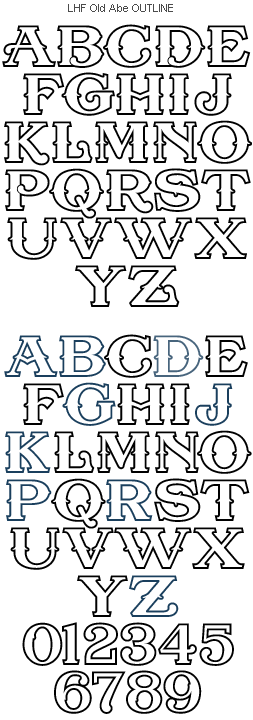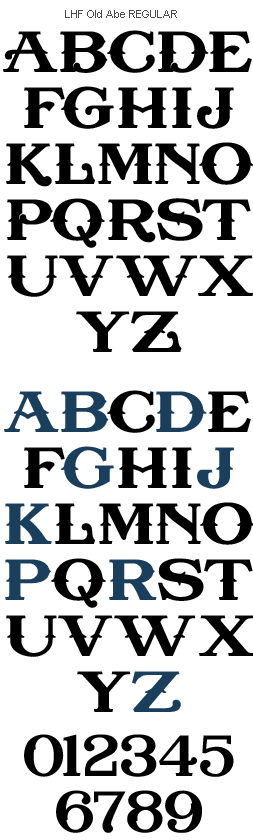
LHF Old Abe Inspired from an old cigar label. A fine piece of craftsmanship wrapped up nicely within 2 fonts. Regular and Outline versions with alternates.